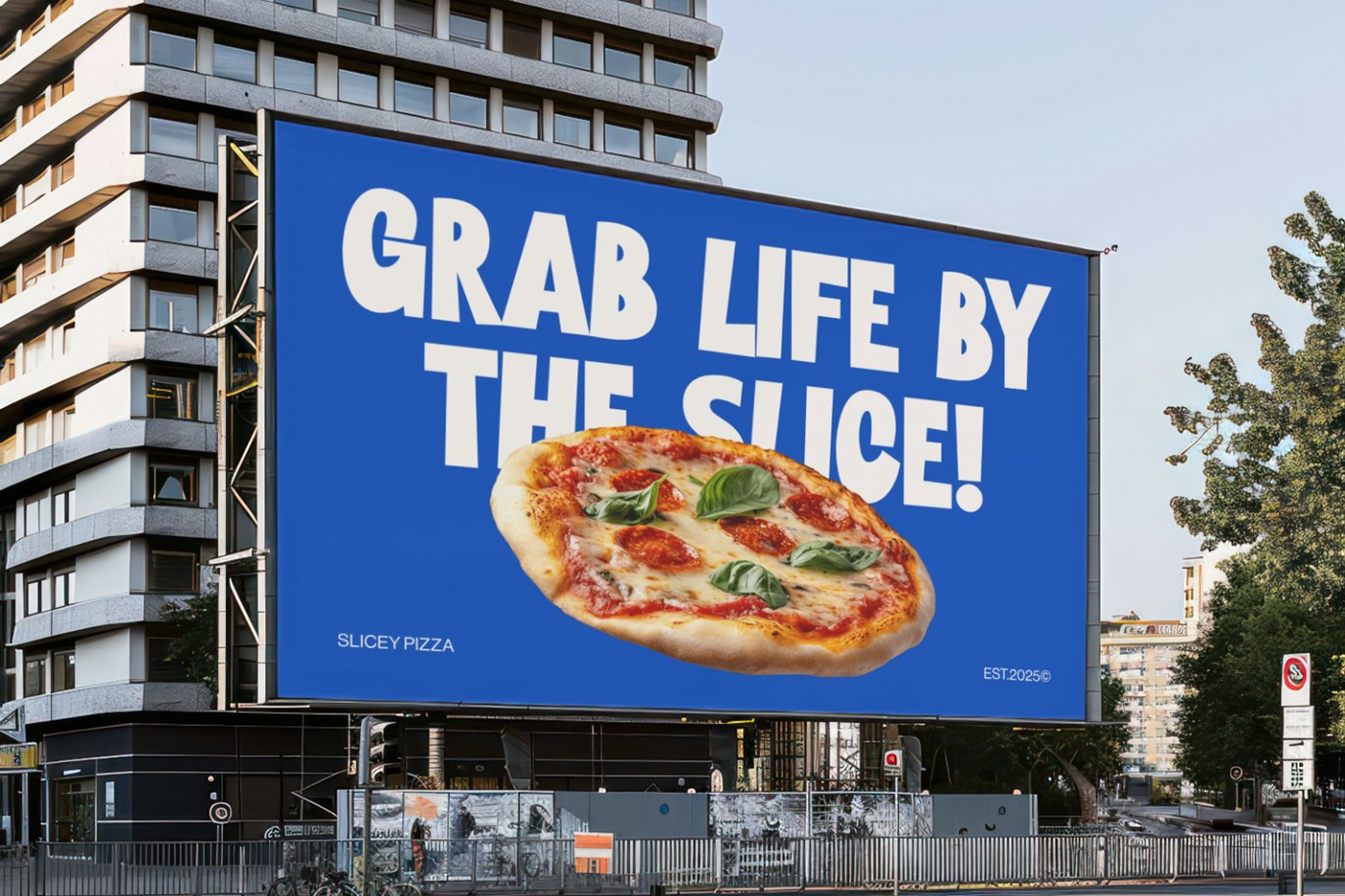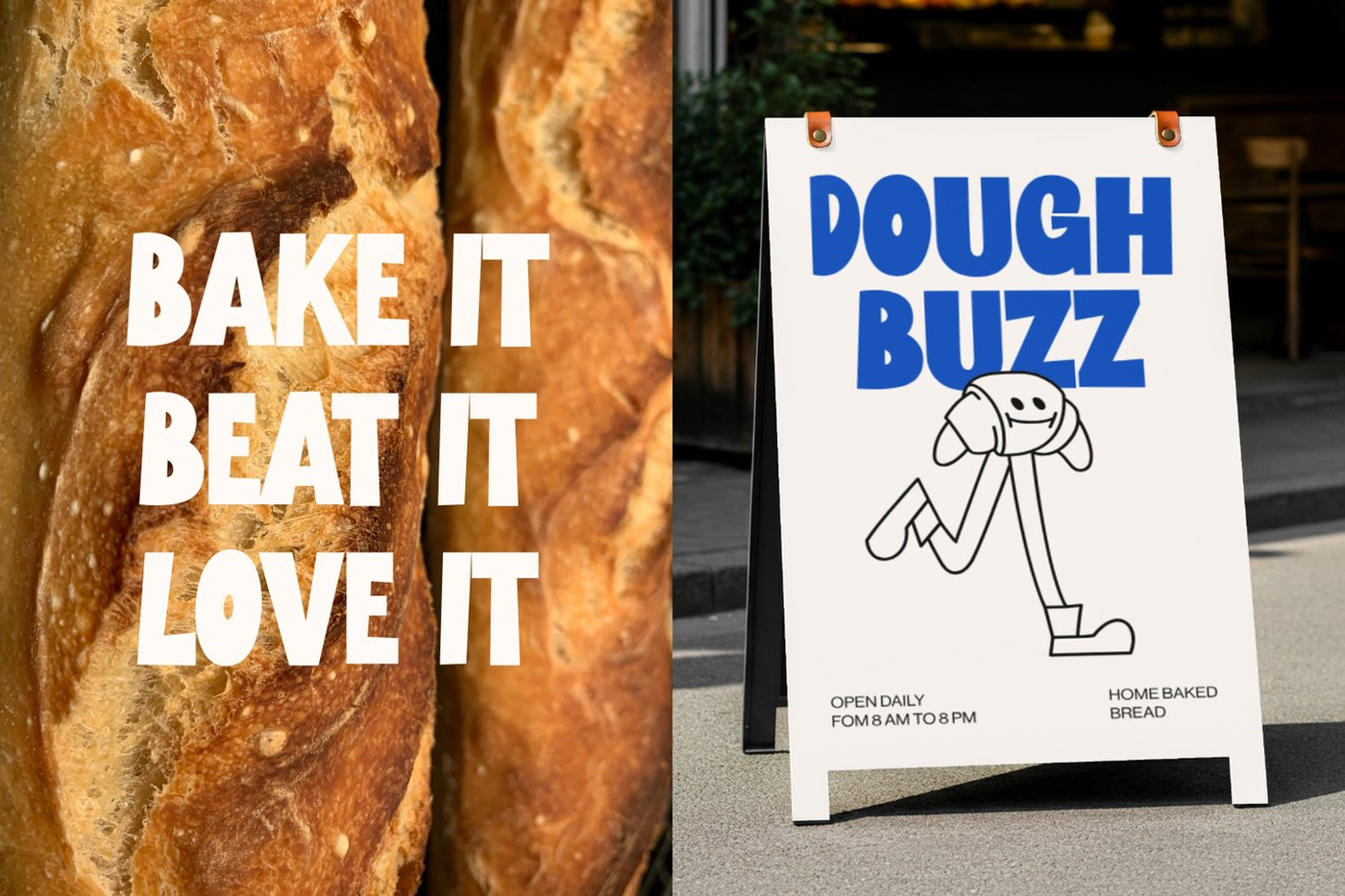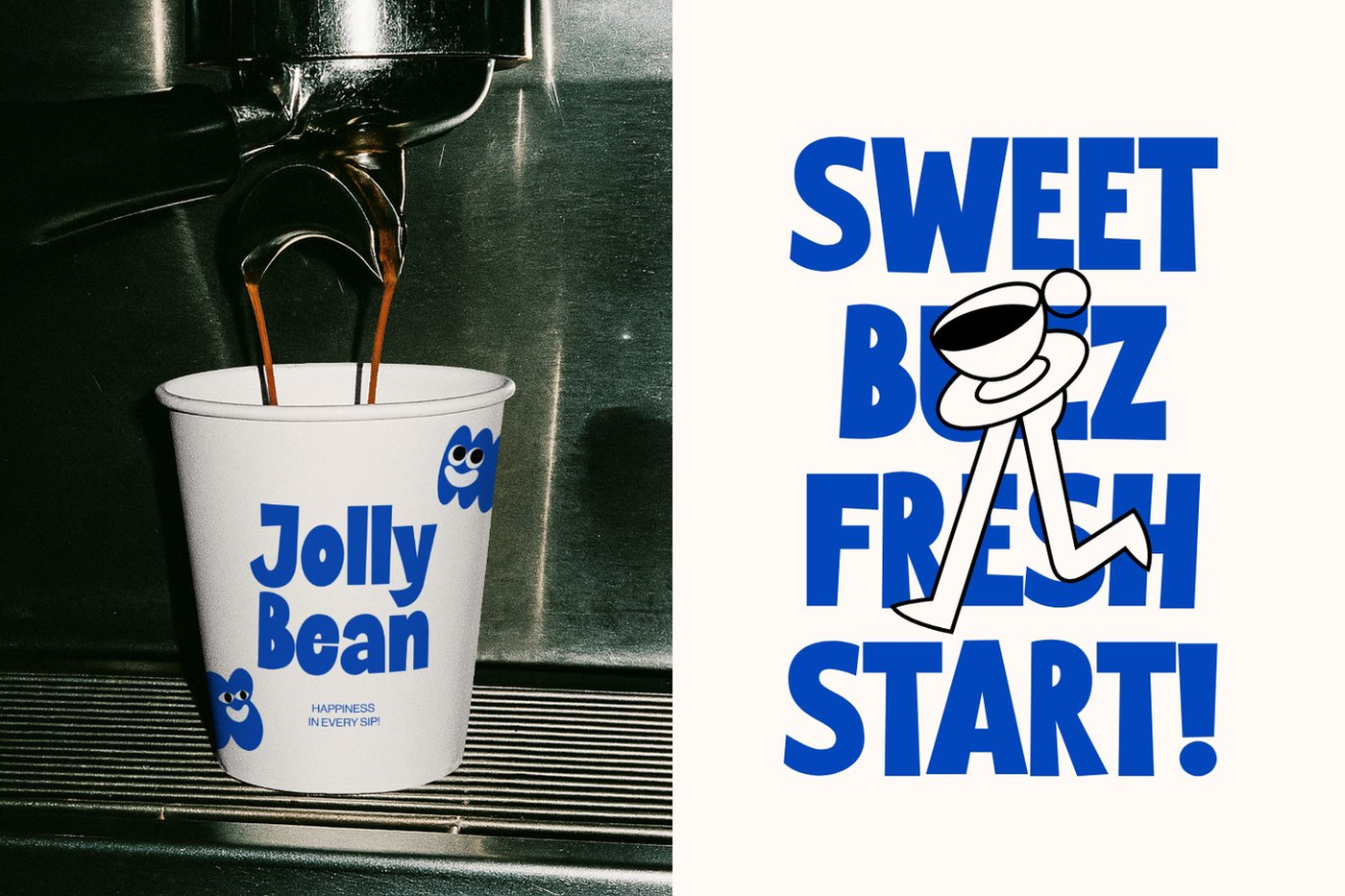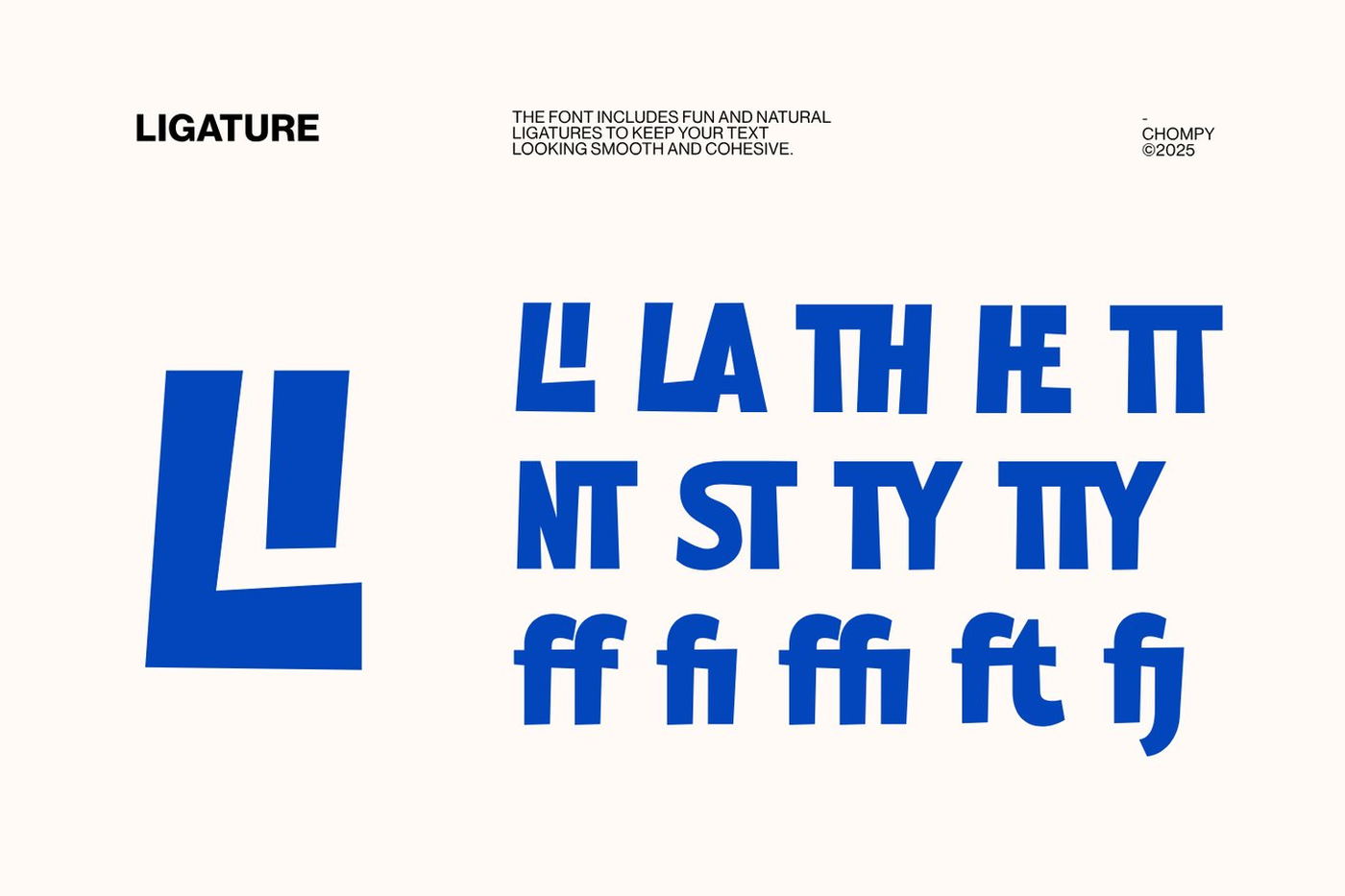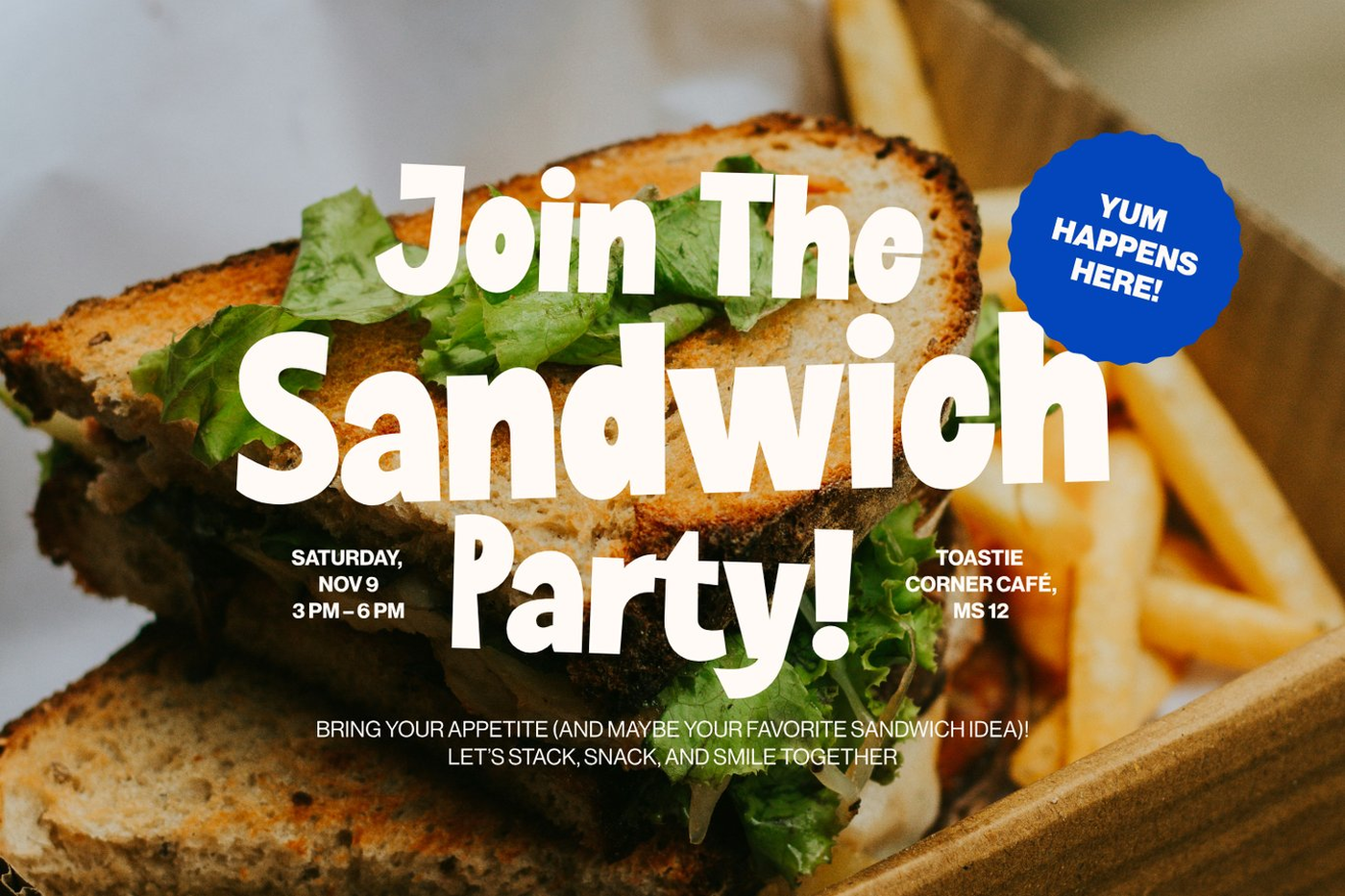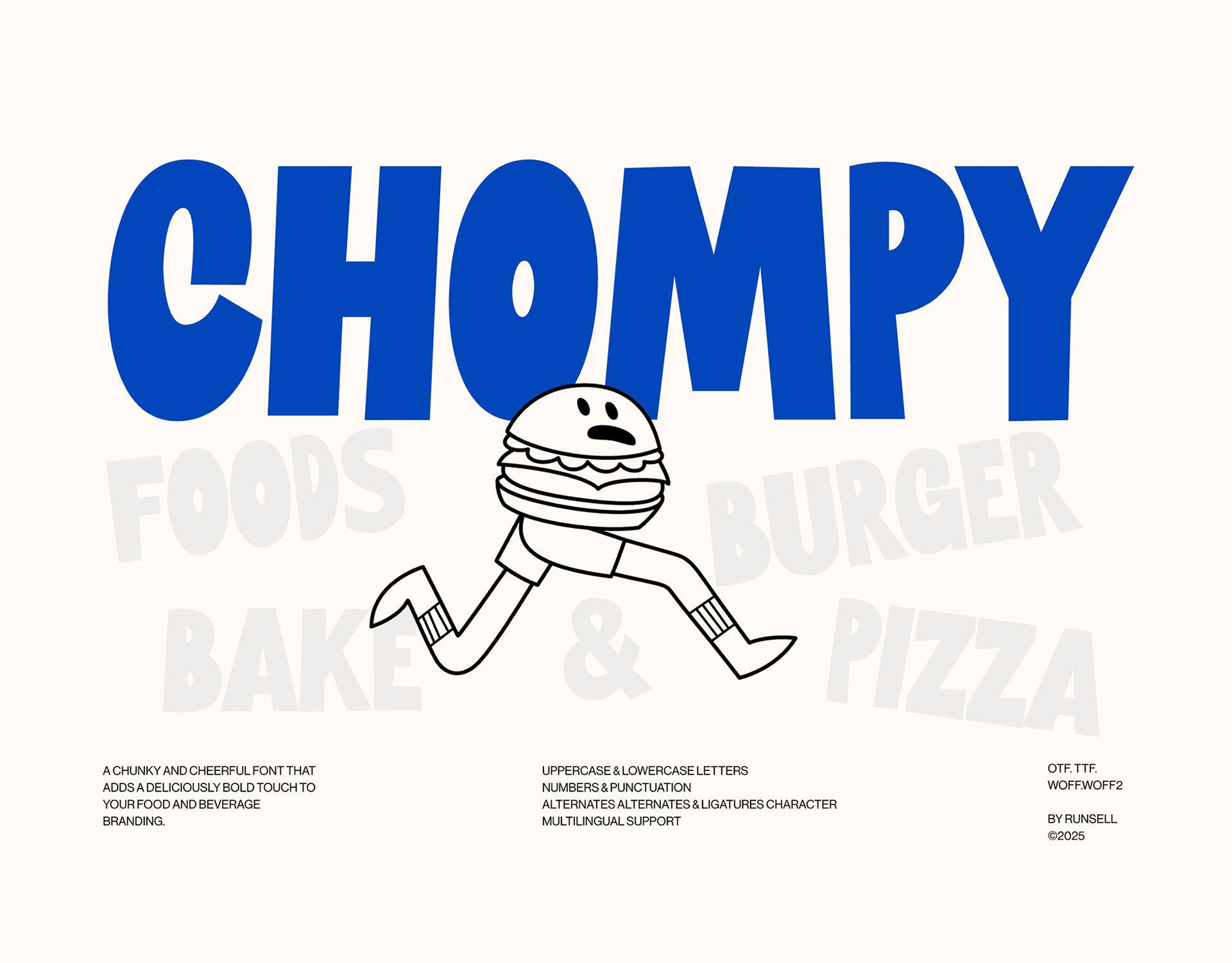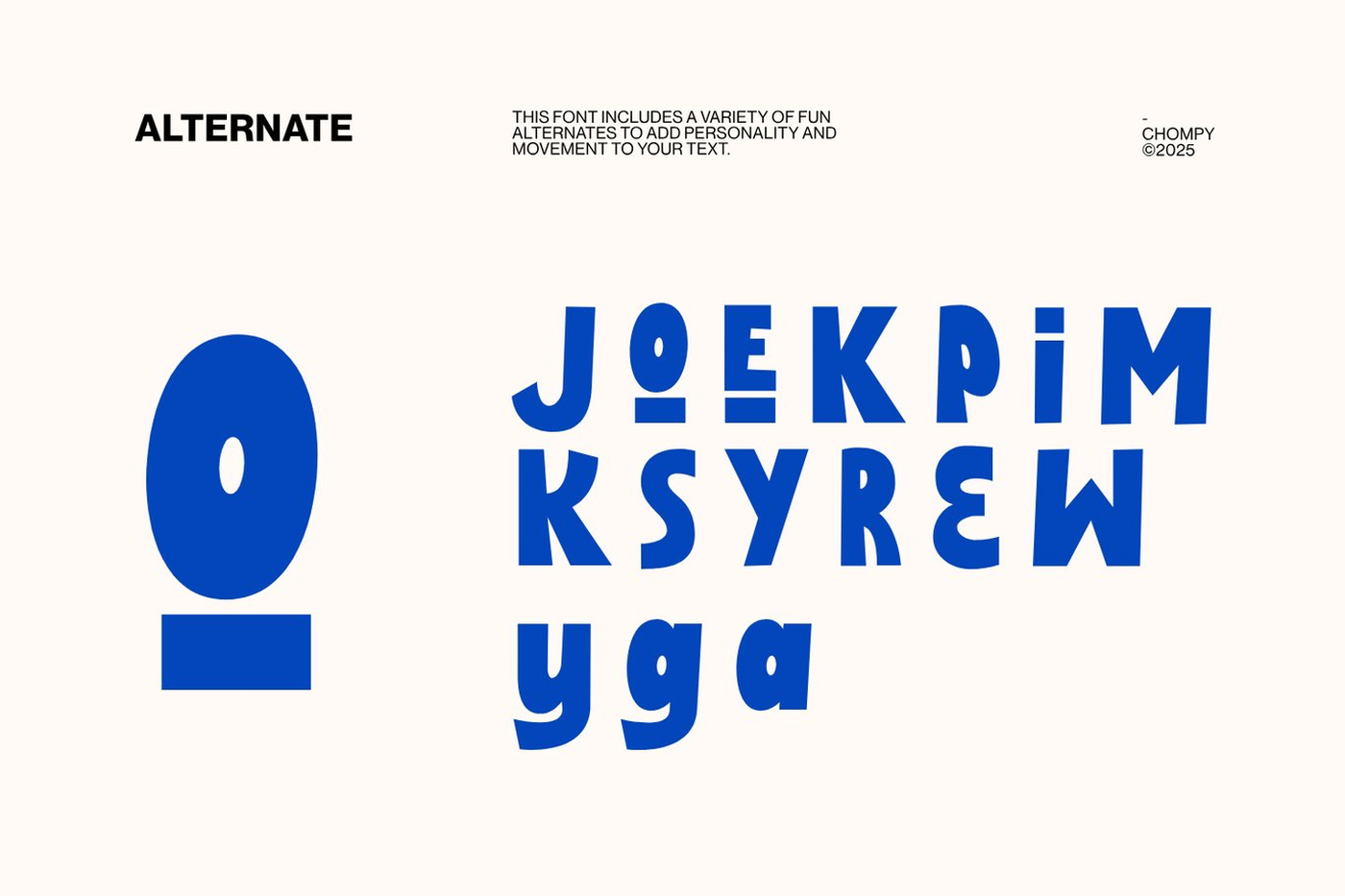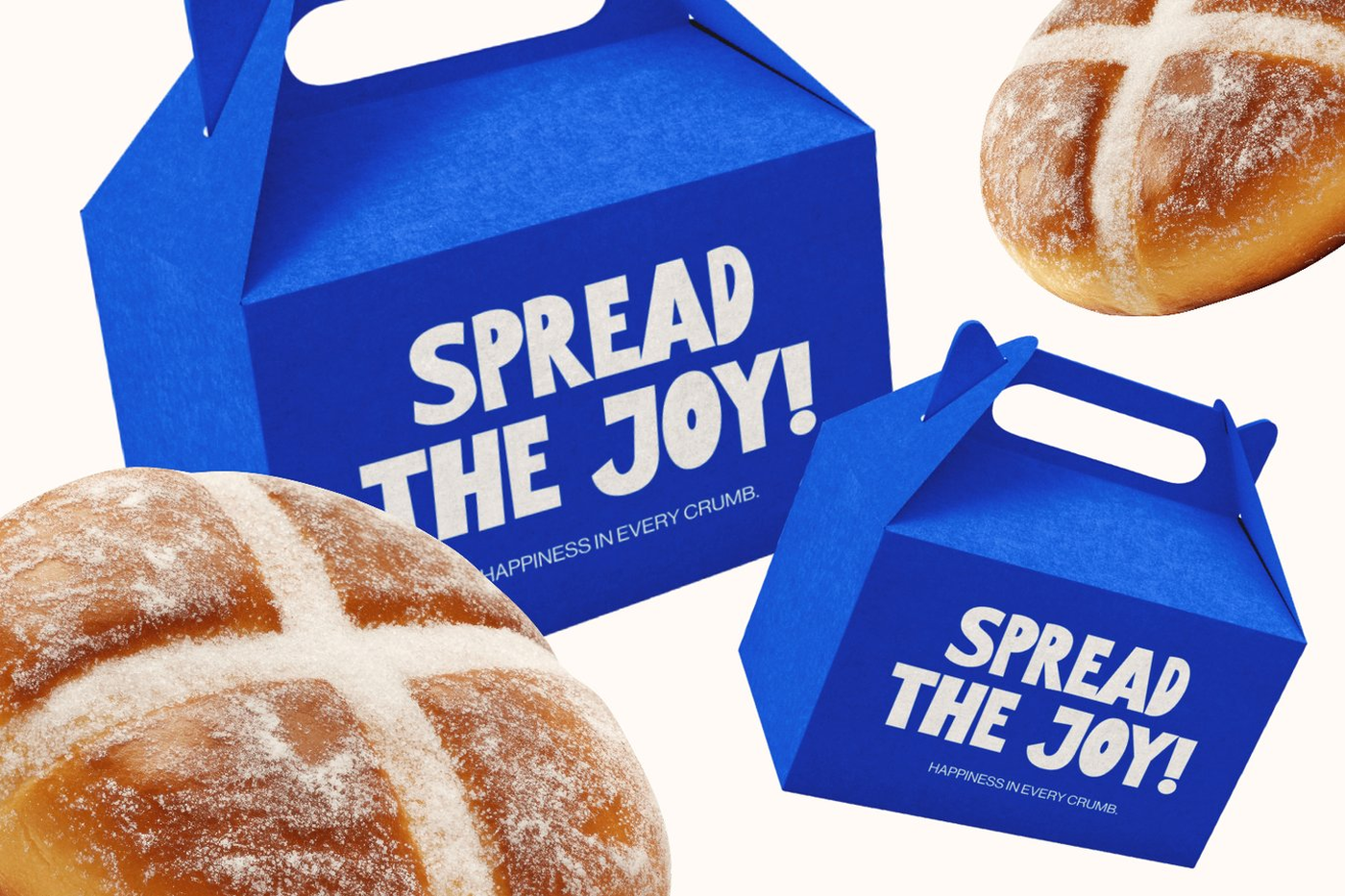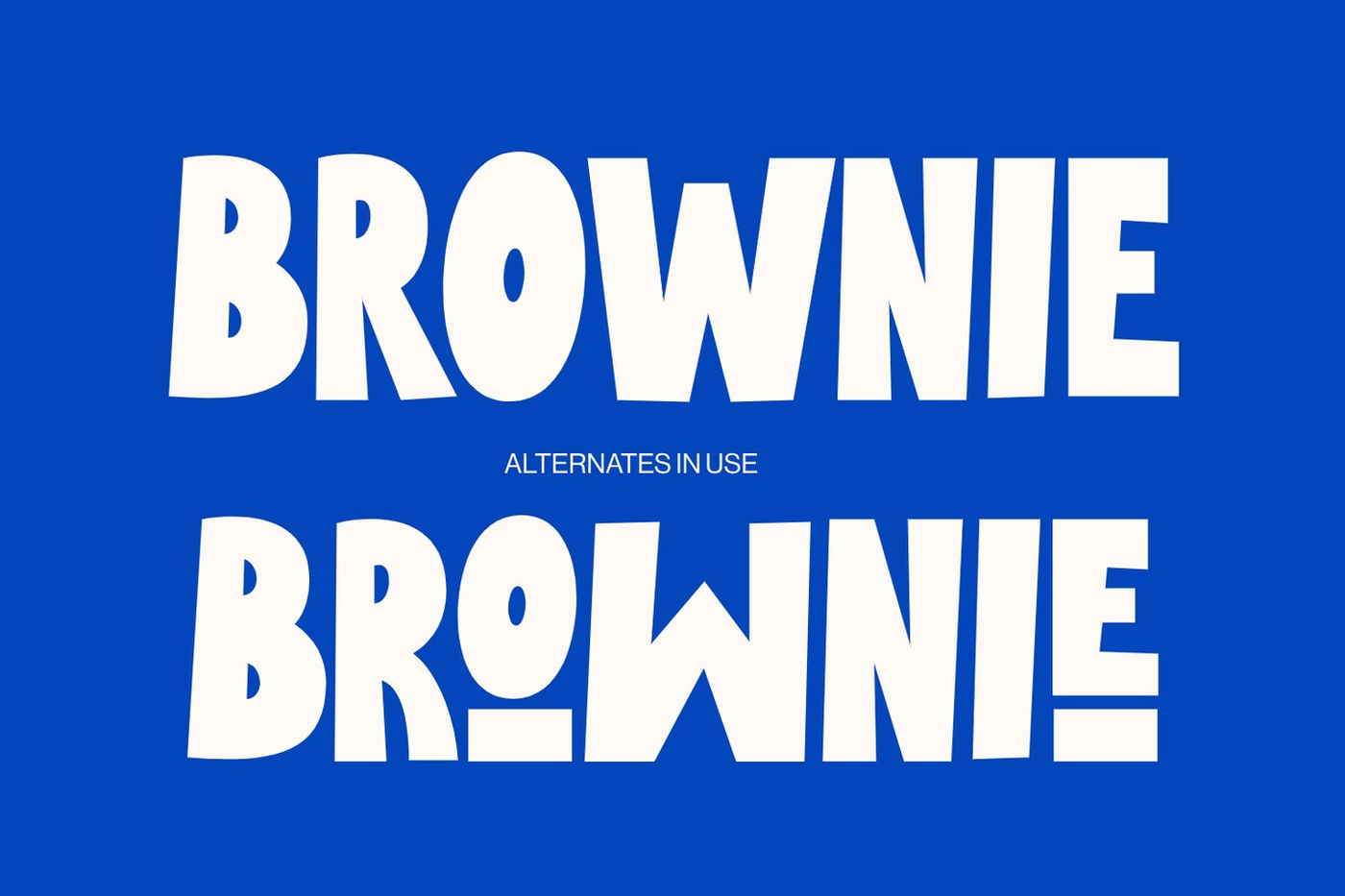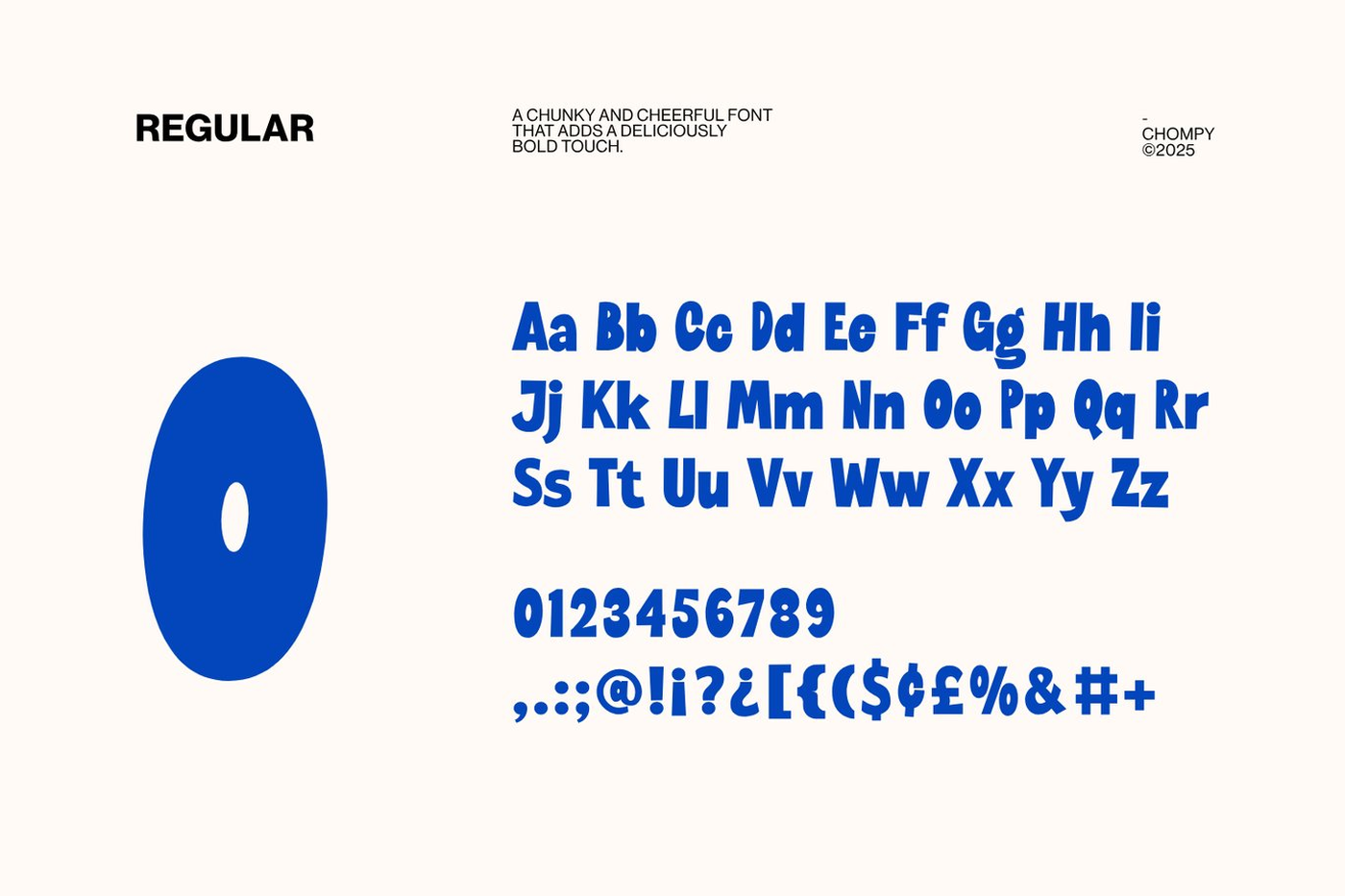
Chompy - Chunky Display Font
Chompy is a chunky and cheerful display font that brings bold flavor to your food, burger, bake, and pizza branding. Its fun, rounded letterforms capture the spirit of playfulness and appetite — perfect for restaurant menus, café logos, candy packaging, and any food or beverage design that needs a joyful punch. Every curve feels friendly and inviting, making your typography look as delicious as the dishes you serve. Designed to work seamlessly across brand identity, kitchen signage, and menu layouts, Chompy blends retro confidence with modern usability. Whether you’re designing for a coffee shop, ice cream parlor, or street-style burger joint, this font adds the perfect bite of personality. Let Chompy feed your creativity and give your brand a taste that’s impossible to forget.